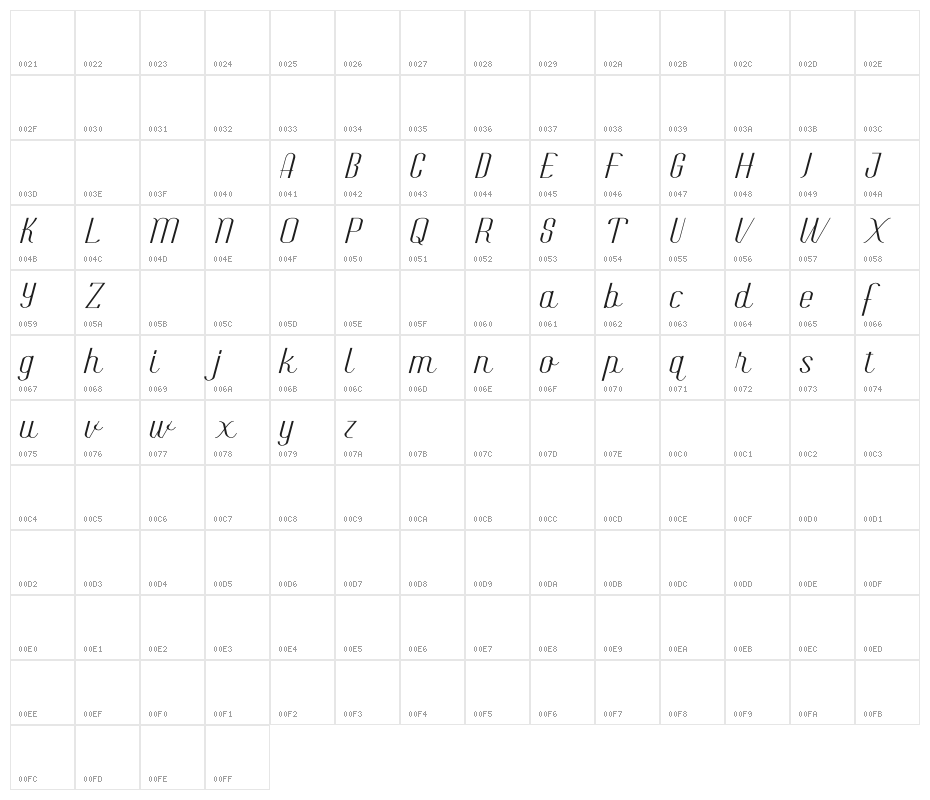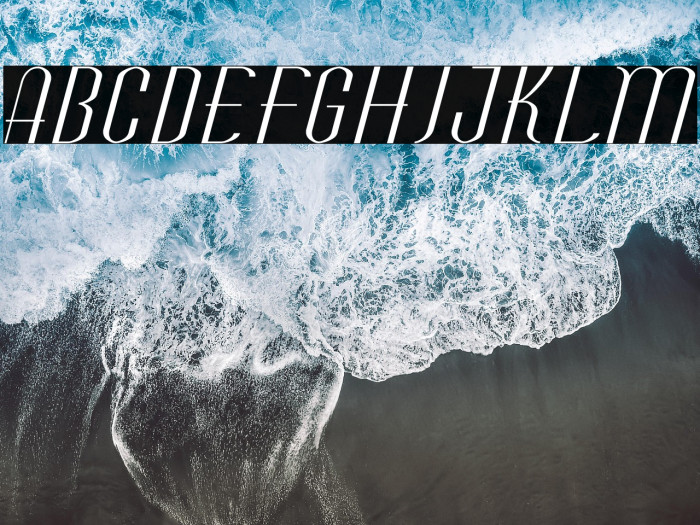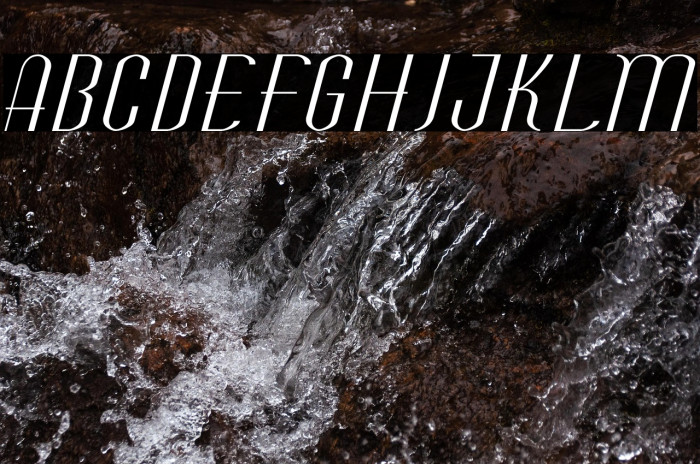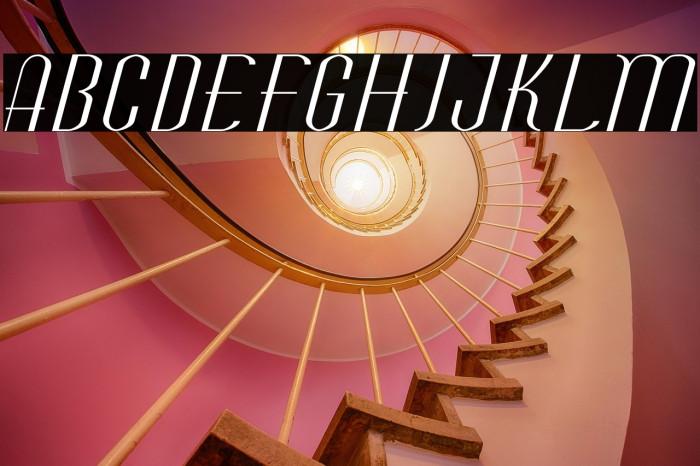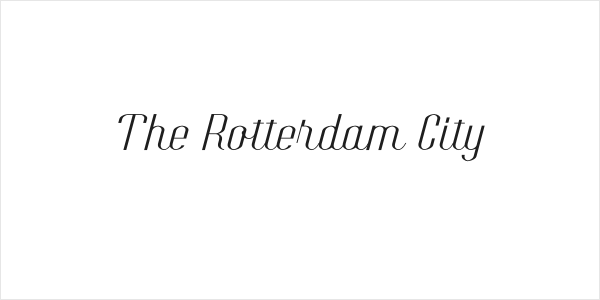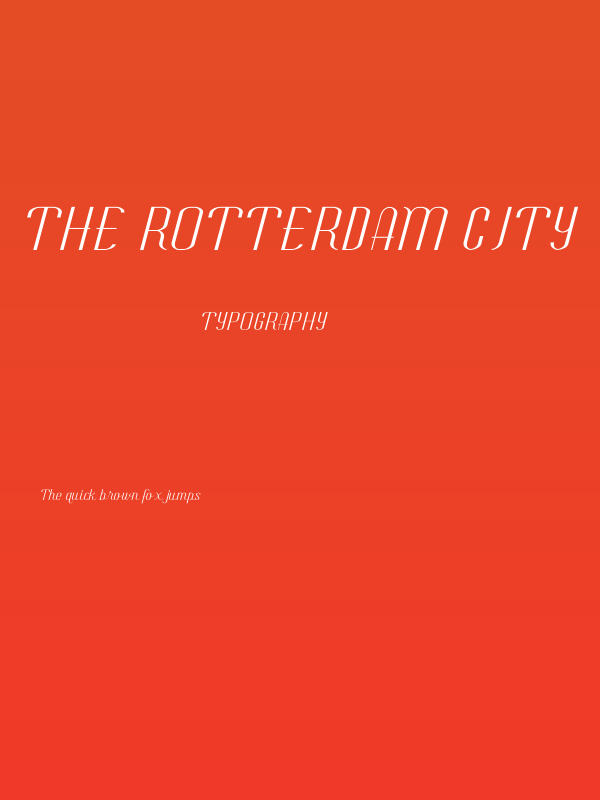
The Rotterdam City Font
The Rotterdam City Description
This font features a sophisticated and elegant design with a script-like quality. The characters are slightly slanted, giving a dynamic and fluid appearance. The strokes are thin with a moderate contrast, adding to the refined aesthetic. The uppercase letters are tall and narrow, while the lowercase letters maintain a consistent flow, enhancing readability. The overall style is modern with a touch of classic script influence, making it suitable for various creative applications.
| Proposed Projects | Ideal for wedding invitations, elegant branding, fashion magazines, and luxury product packaging. |